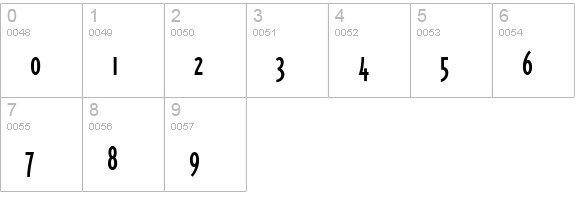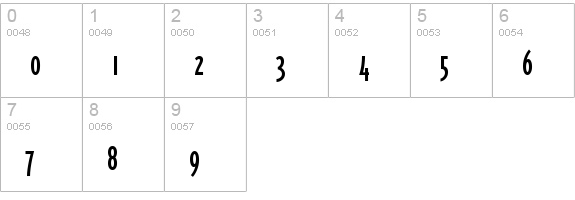
TriplexCond Font Details
TriplexCond is a captivating and versatile font that will elevate your designs to new heights. Its sleek and modern design exudes sophistication, making it the perfect choice for any project that requires a touch of elegance. With its condensed form, TriplexCond allows you to fit more text into a limited space without sacrificing readability. What sets TriplexCond apart is its incredible attention to detail. Every curve and line has been meticulously crafted to ensure a flawless and visually appealing typeface. Its clean and sharp edges give it a contemporary feel, while its subtle curves add a hint of warmth and personality. Whether you need a font for a logo, a headline, or body text, TriplexCond is up to the task. Its versatility makes it suitable for a wide range of applications, from print to digital media. With TriplexCond, your designs will stand out from the crowd and leave a lasting impression on your audience. And the best part? TriplexCond is completely free to download at FontsMarket.com. Yes, you read that right – this incredible font is available at no cost, allowing you to bring your creative vision to life without breaking the bank. FontsMarket.com is your go-to source for high-quality fonts, and TriplexCond is just one of the many amazing options available. So why wait? Download TriplexCond today and unlock a world of design possibilities. Whether you're a graphic designer, a web developer, or someone who simply appreciates beautiful typography, TriplexCond will not disappoint. With its stunning aesthetics and the convenience of being freely available, TriplexCond is a must-have addition to your font collection.